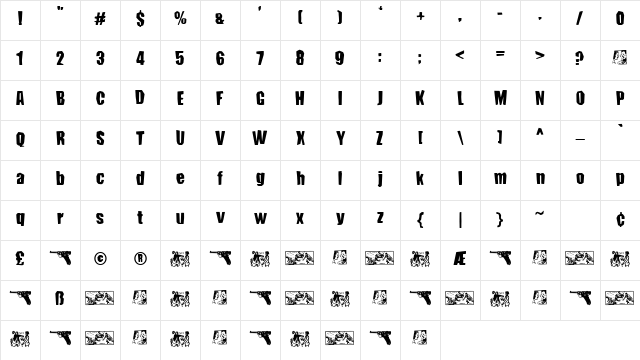
Conundrum A Free Font
Conundrum A
Style: A
Conundrum Family
Design Context for Conundrum
Conundrum is a composed and adaptable typeface that performs quietly and consistently across a wide range of design contexts.